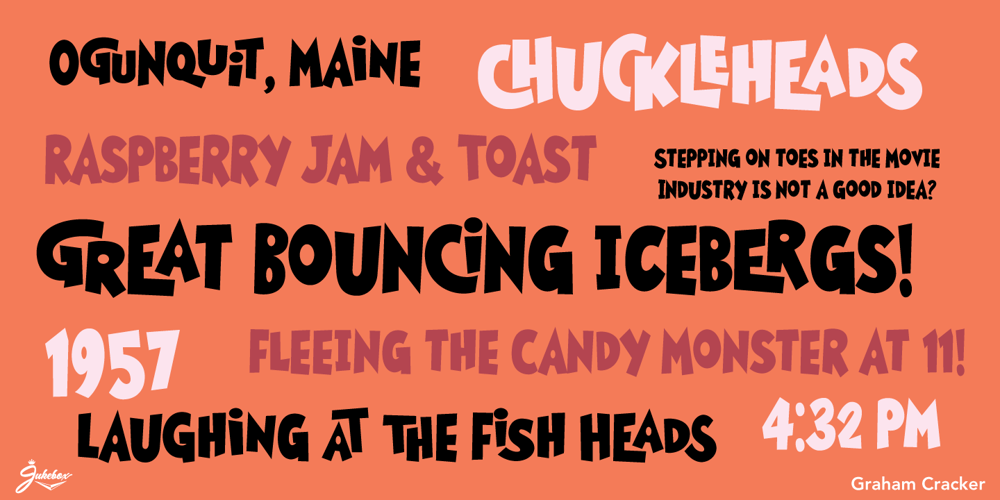
Graham Cracker JF Font Family was designed by Jason Anthony Walcott and published by Jukebox Collection. Graham Cracker JF contains 1 styles and family package options. Graham Cracker is a fun, cartoony and child-like font that can’t help but fill you with happiness! The font was inspired by hand-drawn lettering on an old 1960s movie poster, and contains over 175 interlocking ligatures that add a hand-lettered feel. Stylistic substitutions like this are where the OpenType technology really shines, allowing computer fonts to more closely mimic the variations of hand drawn lettering. The ligatures can be found under the Discretionary Ligatures OT feature, or applied from the glyph palette. Jukebox fonts are available in OpenType format and downloadable packages contain both .otf and .ttf versions of the font. They are compatible on both Mac and Windows. All fonts contain basic OpenType features as well as support for Latin-based and most Eastern European languages.